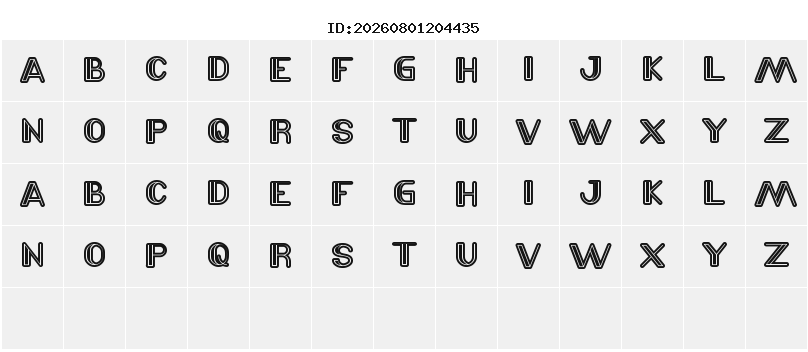
• Font Name: LASER GUN
About LASER GUN.ttf
LASER GUN.ttf is a modern, elegant sans-serif font designed for ultimate readability and visual harmony. Perfect for branding, headlines, web design, and print materials.